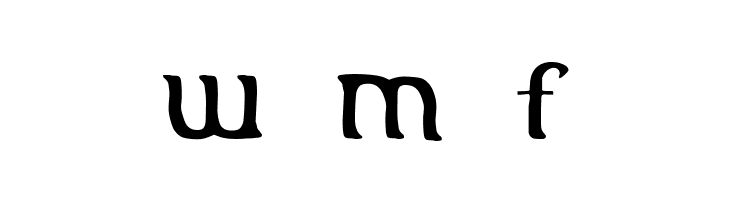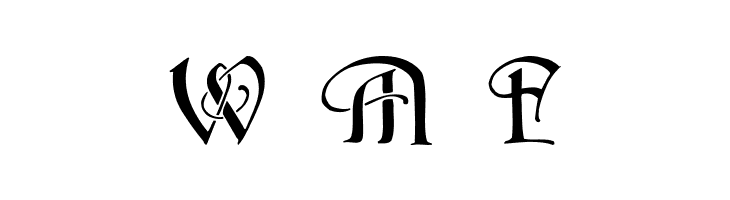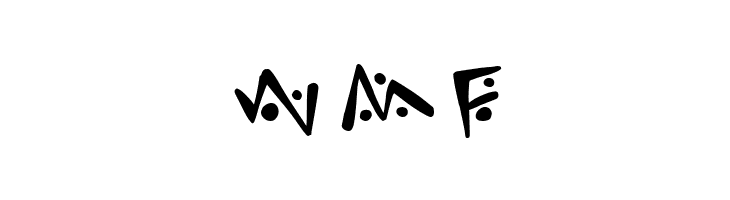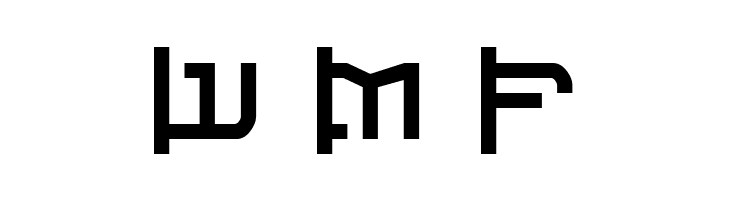
A bold, futuristic font with angular, geometric shapes and a dynamic slant.
A bold, medieval-inspired font with sharp, angular edges and a hand-crafted look.
A bold, cartoonish font with thick outlines and a playful style.
A bold, rounded font with a playful, retro vibe.
A bold, futuristic font with geometric and rounded letterforms.
A bold, handwritten font with a playful and dynamic style.
A sleek, modern font with a slight slant and smooth, flowing lines.
A playful, smiley-adorned decorative font perfect for fun and engaging designs.
A playful, balloon-themed font perfect for festive and joyful designs.
A bold, playful font with exaggerated, irregular shapes and dynamic energy.
A bold, three-dimensional geometric font with a striking visual impact.
A bold, geometric font with a futuristic and digital aesthetic.
A futuristic, geometric font with bold, pixelated outlines.
A futuristic, geometric font with clean lines and open forms.
A bold, geometric font with rounded edges and a distinct outline, perfect for impactful designs.
A futuristic, geometric font with bold, angular letterforms.
A bold, hand-drawn font with a playful and chaotic style.
A bold, playful font with geometric elements and dynamic character shapes.
A bold, fiery font with jagged, distressed characters.
A bold, pixelated font with a retro digital display style.
A bold, angular font with a dynamic, slanted design.
A bold, handwritten font with a playful and dynamic style.
A futuristic, geometric font with bold, angular characters.